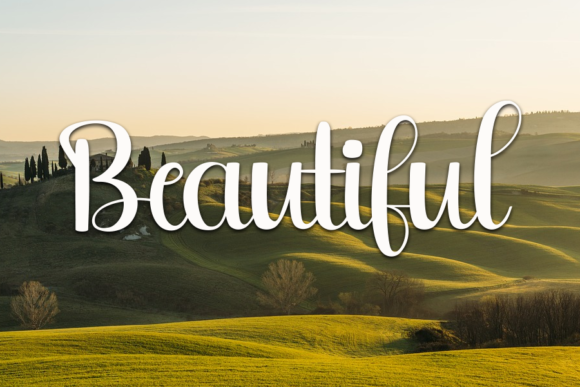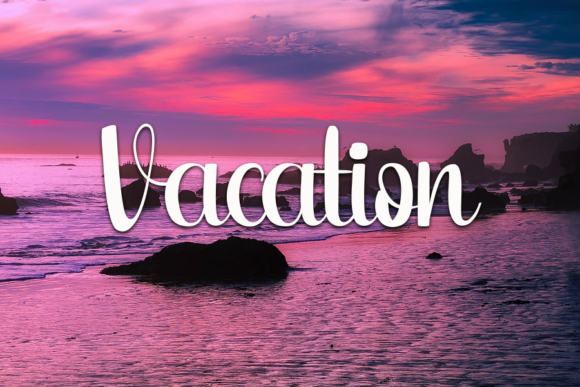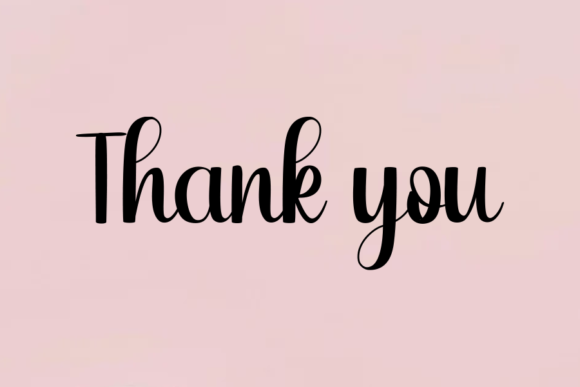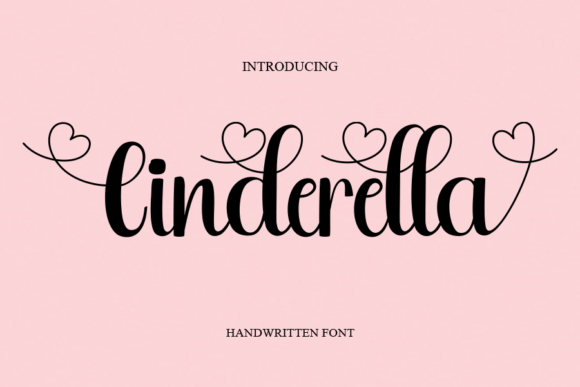
Cinderella Font: Add a Touch of Romance to Your Designs
Cinderella is an enchanting handwritten font that has captured the hearts of designers and crafters alike. With its elegant and whimsical feel, this versatile font is perfect for a wide range of applications, from greeting cards to headlines, and is guaranteed to add a romantic touch to your next project.
The Story Behind Cinderella Font
Inspired by the classic fairy tale, Cinderella Font brings to life the magic and wonder of the beloved story. The font’s creator aimed to capture the essence of Cinderella’s charm and beauty, transforming it into a digital format that can be used by designers and crafters worldwide. The result is a font that exudes a sense of romance, sophistication, and playfulness.
Characteristics of Cinderella Font
Cinderella Font boasts a range of characteristics that make it a standout choice for designers and crafters. Some of its notable features include:
• Handwritten feel: Cinderella Font has a distinctly handwritten feel, giving it a personal and intimate touch.
• Elegant and whimsical: The font’s elegant and whimsical design makes it perfect for projects that require a touch of sophistication and playfulness.
• Versatile: Cinderella Font can be used for a wide range of applications, from greeting cards to headlines, and even social media graphics.
• Romantic feel: The font’s romantic feel makes it ideal for projects that require a touch of warmth and sentimentality.
Uses of Cinderella Font
Cinderella Font is a versatile font that can be used in a variety of projects, including:
• Greeting cards: Add a touch of romance and whimsy to your greeting cards with Cinderella Font.
• Headlines: Use Cinderella Font to create eye-catching headlines for your blog posts, articles, or social media graphics.
• Social media graphics: Add a touch of elegance and sophistication to your social media graphics with Cinderella Font.
• Wedding and event planning: Cinderella Font is perfect for wedding and event planning projects, such as invitations, programs, and signage.
• Branding and packaging: Use Cinderella Font to add a touch of whimsy and romance to your branding and packaging materials.
Tips for Using Cinderella Font
Here are some tips for using Cinderella Font in your designs:
• Pair with complementary fonts: Pair Cinderella Font with complementary fonts to create a visually appealing contrast.
• Experiment with colors: Experiment with different colors to find the perfect match for your project.
• Use for headlines and titles: Use Cinderella Font for headlines and titles to add a touch of elegance and sophistication.
• Add embellishments: Add embellishments, such as flowers or swashes, to enhance the romantic feel of the font.
Cinderella Font is a versatile and enchanting handwritten font that is perfect for designers and crafters looking to add a touch of romance and whimsy to their projects. With its elegant and whimsical feel, this font is guaranteed to make your designs stand out. Whether you’re creating greeting cards, headlines, or social media graphics, Cinderella Font is a great choice for any project that requires a touch of sophistication and playfulness.